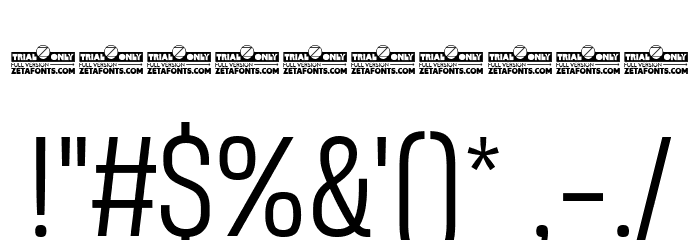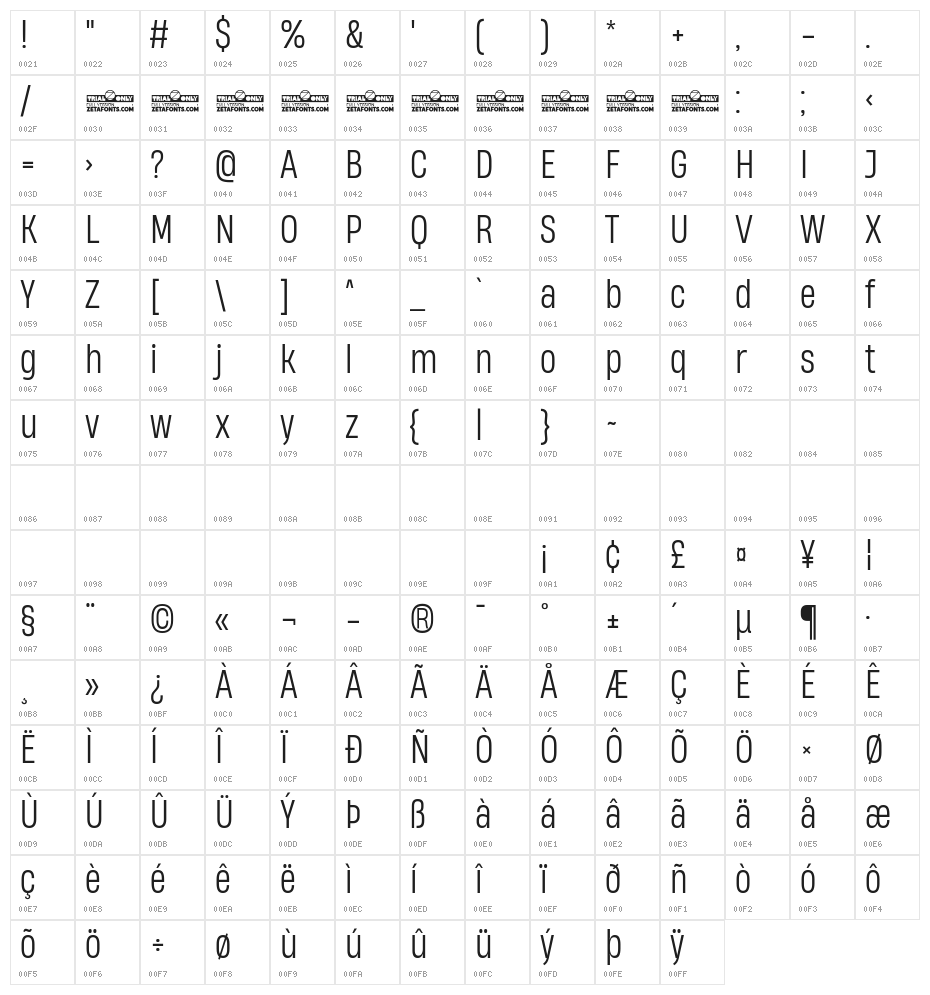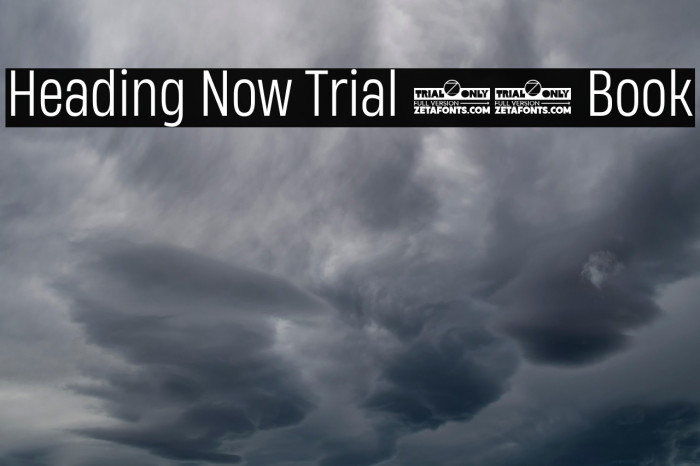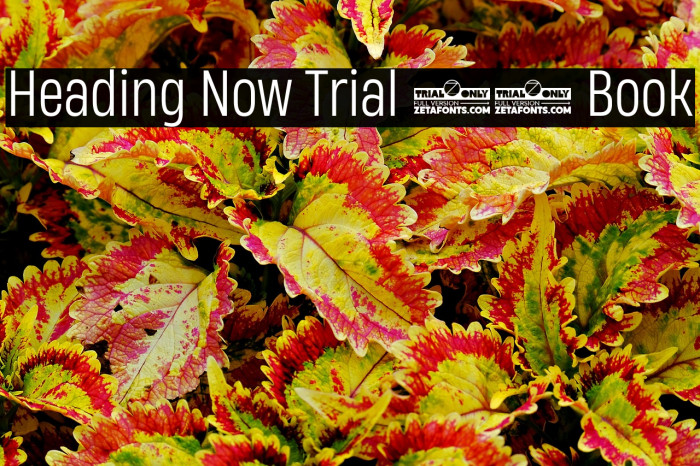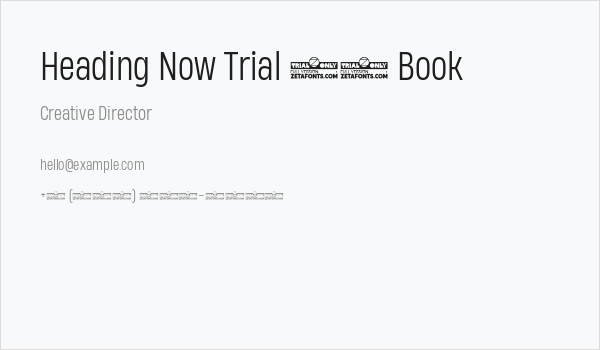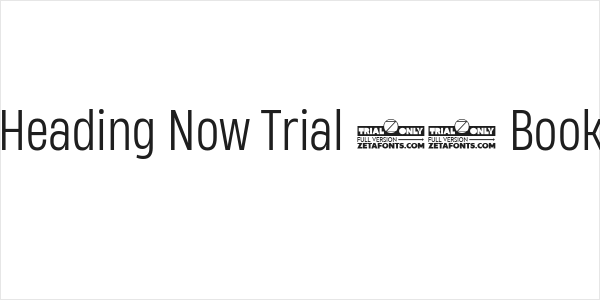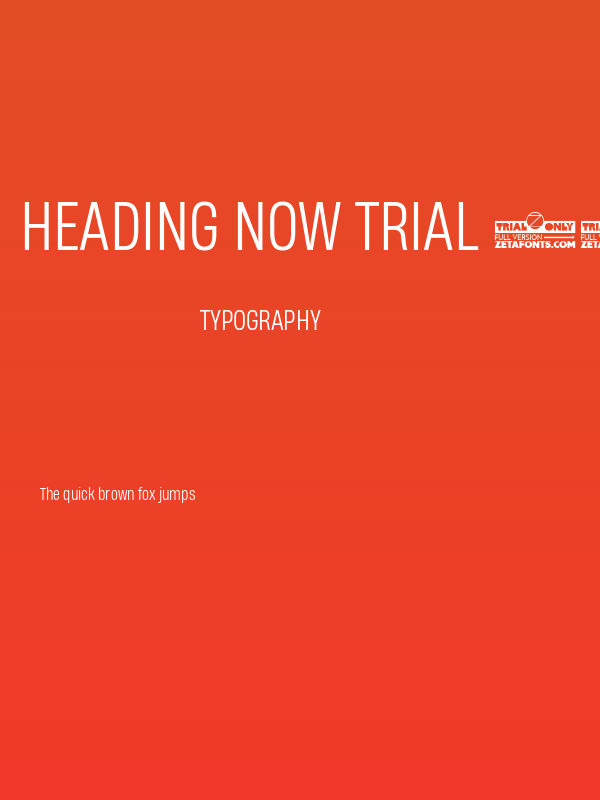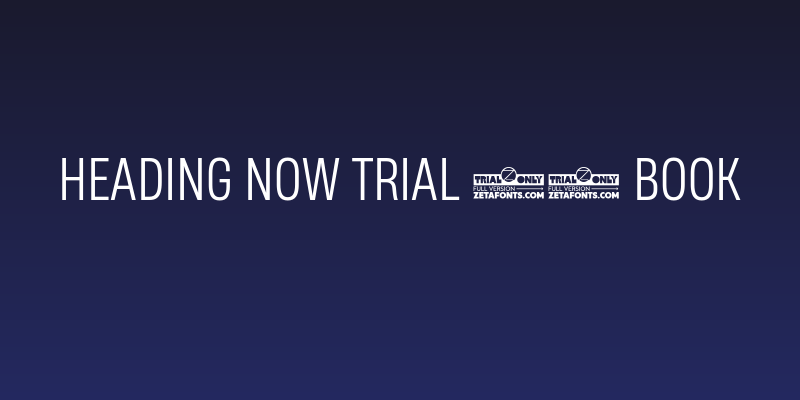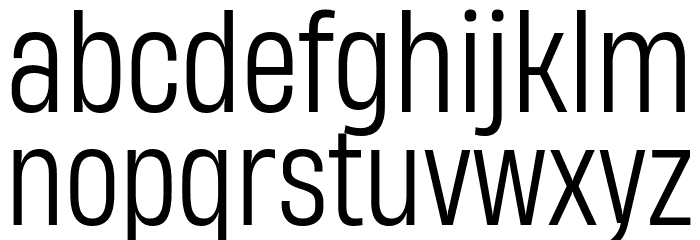
Heading Now Trial 53 Book Font
Heading Now Trial 53 Book Description
This font features a clean and modern sans-serif style with a uniform stroke width. The characters are tall and slightly condensed, giving it a sleek and professional appearance. The uppercase letters are bold and assertive, while the lowercase letters maintain a consistent height, enhancing readability. The numerals and special characters are designed to match the overall aesthetic, making it versatile for various applications. The font's simplicity and clarity make it suitable for both digital and print media, ensuring legibility across different sizes and formats.